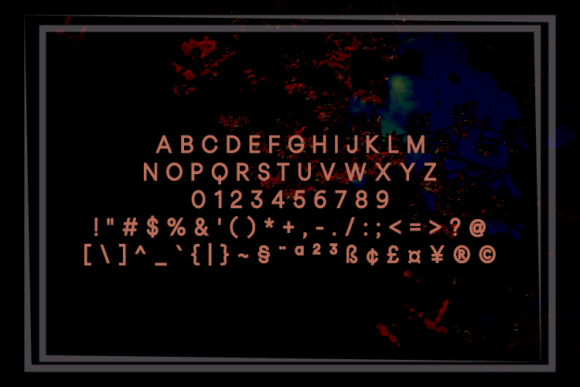
The Font that Stole My Heart: Grilesthy Black Font
An Honest Review of Grilesthy Black Font
- ✨ Modern and casual feel: Grilesthy has a fresh, contemporary look that’s perfect for headlines and body text.
- ✅ Incredibly friendly feel: The font’s rounded edges and smooth curves make it feel approachable and inviting.
- 💯 Versatile: Grilesthy comes in 10 different weights, ranging from thin to extra black, making it suitable for various design projects.
- 🎉 Easy to read: The font’s clear and legible design ensures that your text is easy to read, even at small sizes.
While Grilesthy is an amazing font, it’s not perfect. Here are a few things to keep in mind:
- 🤔 Limited language support: Grilesthy primarily supports Latin-based languages, so if you need to work with non-Latin scripts, you might need to look elsewhere.
- ⚠️ Not ideal for body text: While Grilesthy is great for headlines and short paragraphs, it might not be the best choice for long blocks of body text.
A Practical Guide to Using Grilesthy Black Font
- Ligatures: Grilesthy includes ligatures for common letter combinations, which can add a touch of elegance to your text.
- Stylistic alternates: Grilesthy offers stylistic alternates for certain characters, allowing you to add some visual interest to your text.
The Backstory of Grilesthy Black Font
Grilesthy was designed with the goal of creating a modern, friendly font that’s perfect for a wide range of design projects. The font’s creator drew inspiration from classic sans-serif fonts, but with a fresh, contemporary twist. The result is a font that’s both approachable and stylish.
| Font Name | Grilesthy Black Font |
| Author | Huntype |
Q: What languages does Grilesthy support?
A: Grilesthy primarily supports Latin-based languages.